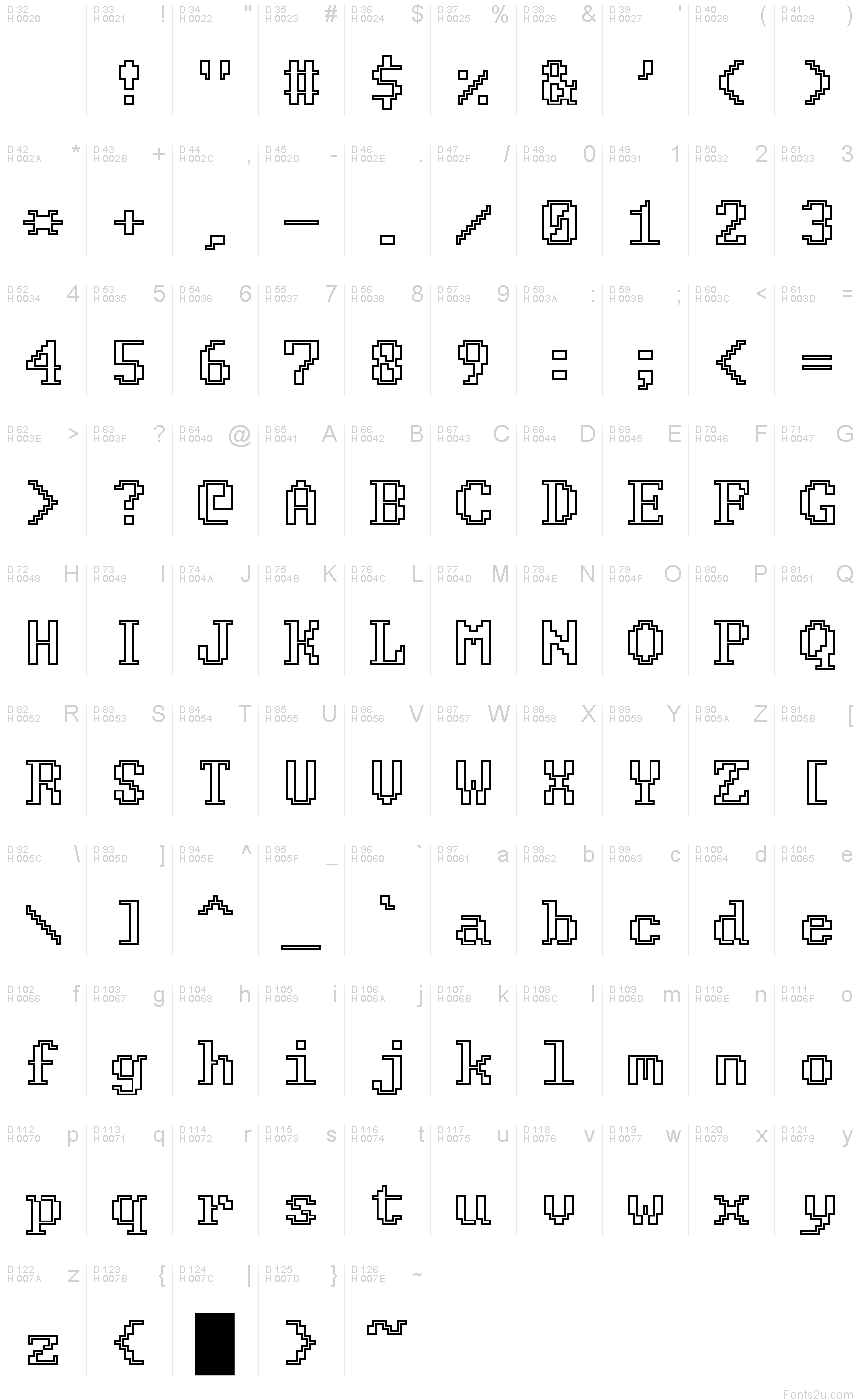
FixCystNeon
FixCystNeon is a retro display face which, at certain point sizes, can create seemless white or coloured text on a black background. The character guide and sample text shown here is at nine point size. Please refer to the read me document for specific instructions about enabling text with the black background.